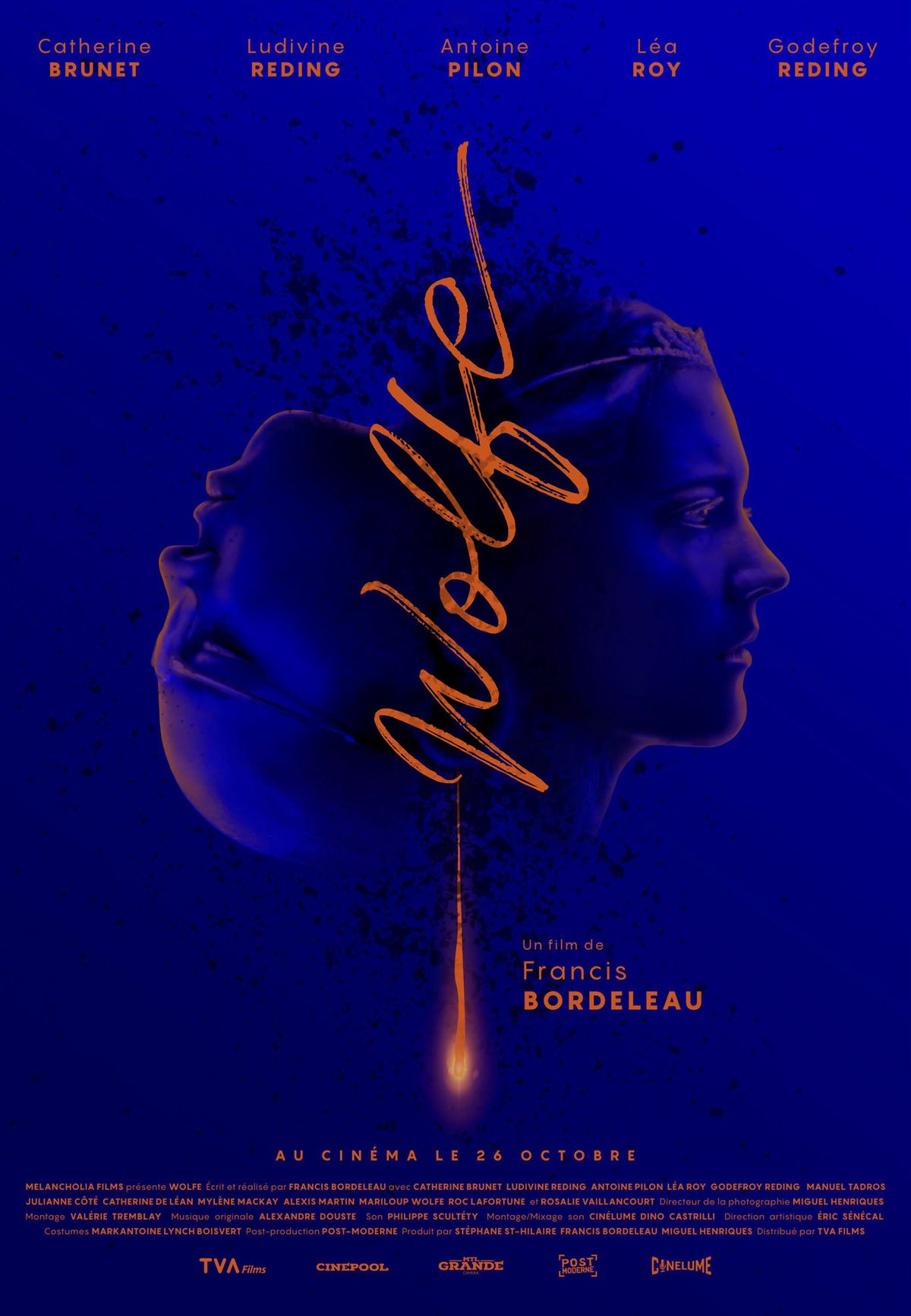
Pangram Sans is a powerful and extensive geometric workhorse. It was designed to be as bold and intense as it can be subtle and flexible.
We took this free to try geometric sans to a whole new level with a fully variable slanting, from Reclined to Italic. It also includes support for the Cyrillic Alphabet.
Inspired by some of the greatest geometric typefaces this complete font family will surely be your next “go to” font to uplift your designs.
This Sub-Family contains 24 styles with 772 glyphs each combined with many Stylistic Sets.
Language support for the Americas, most of Europe and Cyrillic.
Designed by Mat Desjardins in collaboration with Valerio Monopoli